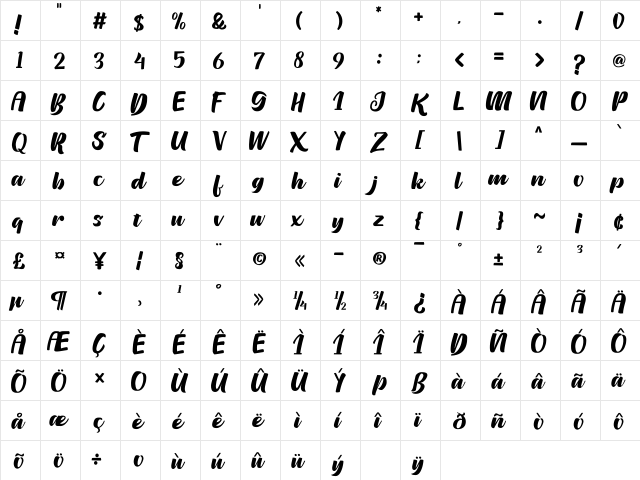
Pinguid Regular
| Foundry | Nur Solikh / Astageni Type. |
| Designer | Nur Solikh |
Design Context for Pinguid Typeface
Pinguid is a composed and adaptable typeface that performs quietly and consistently across a wide range of design contexts.